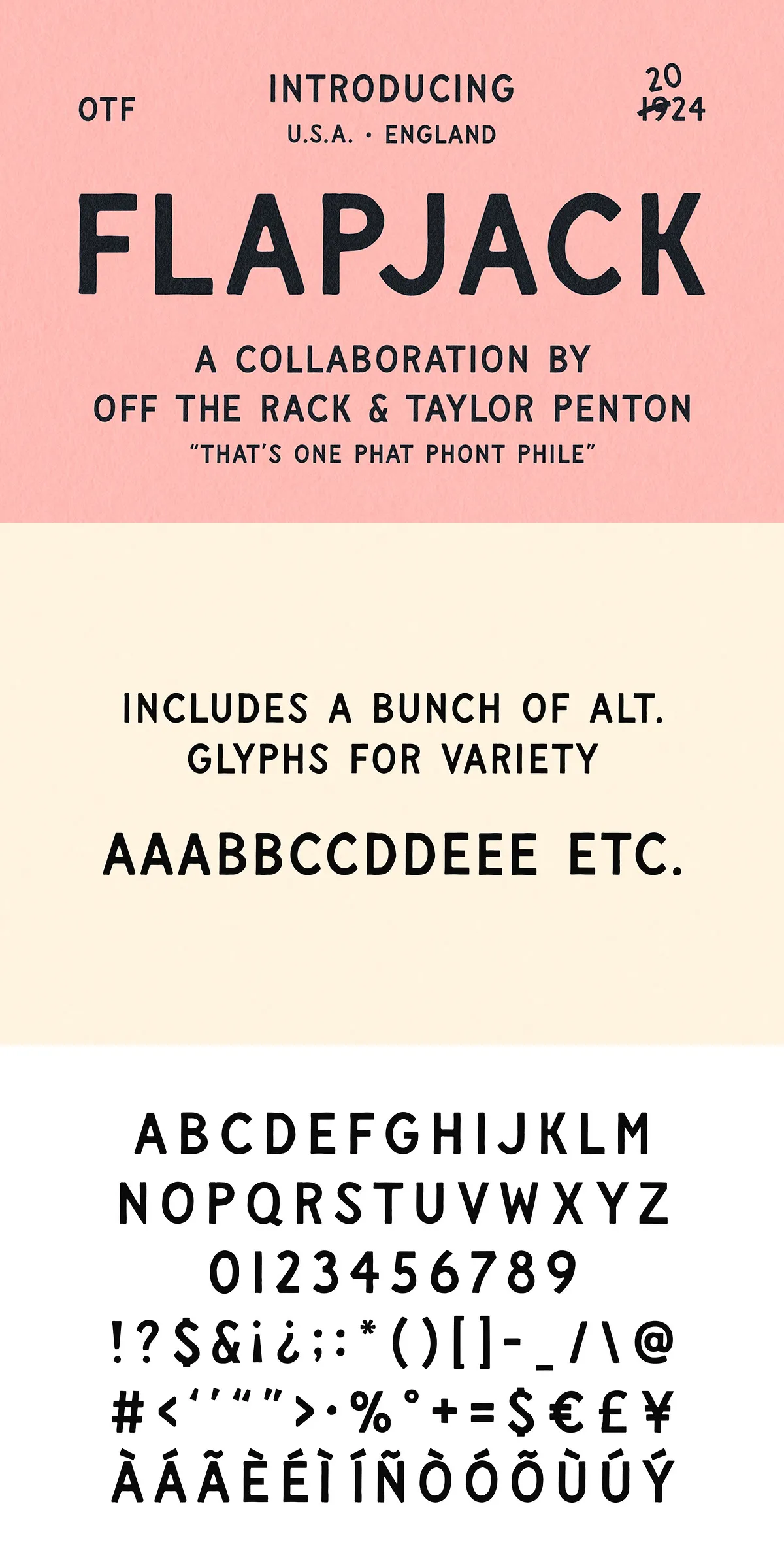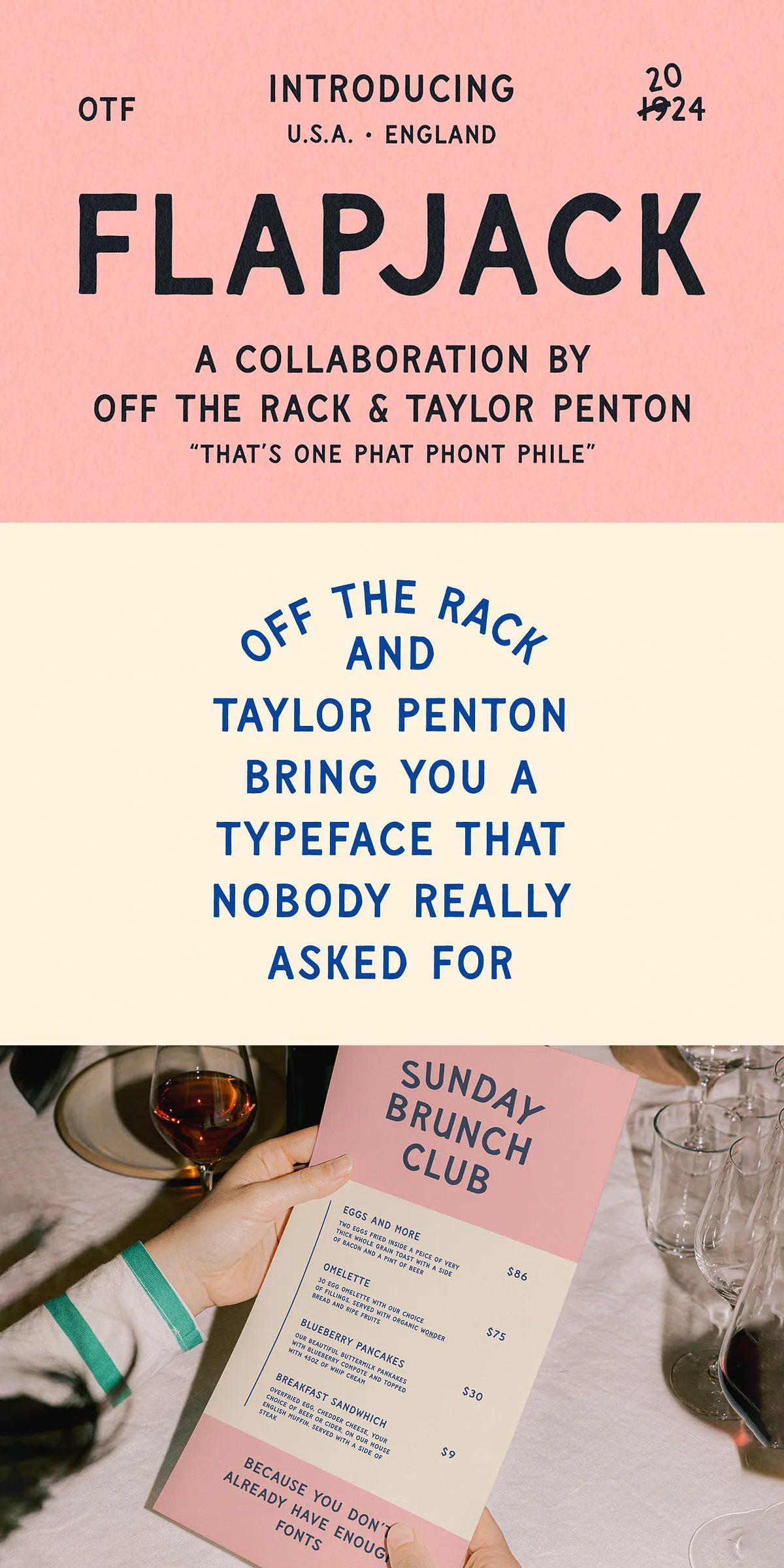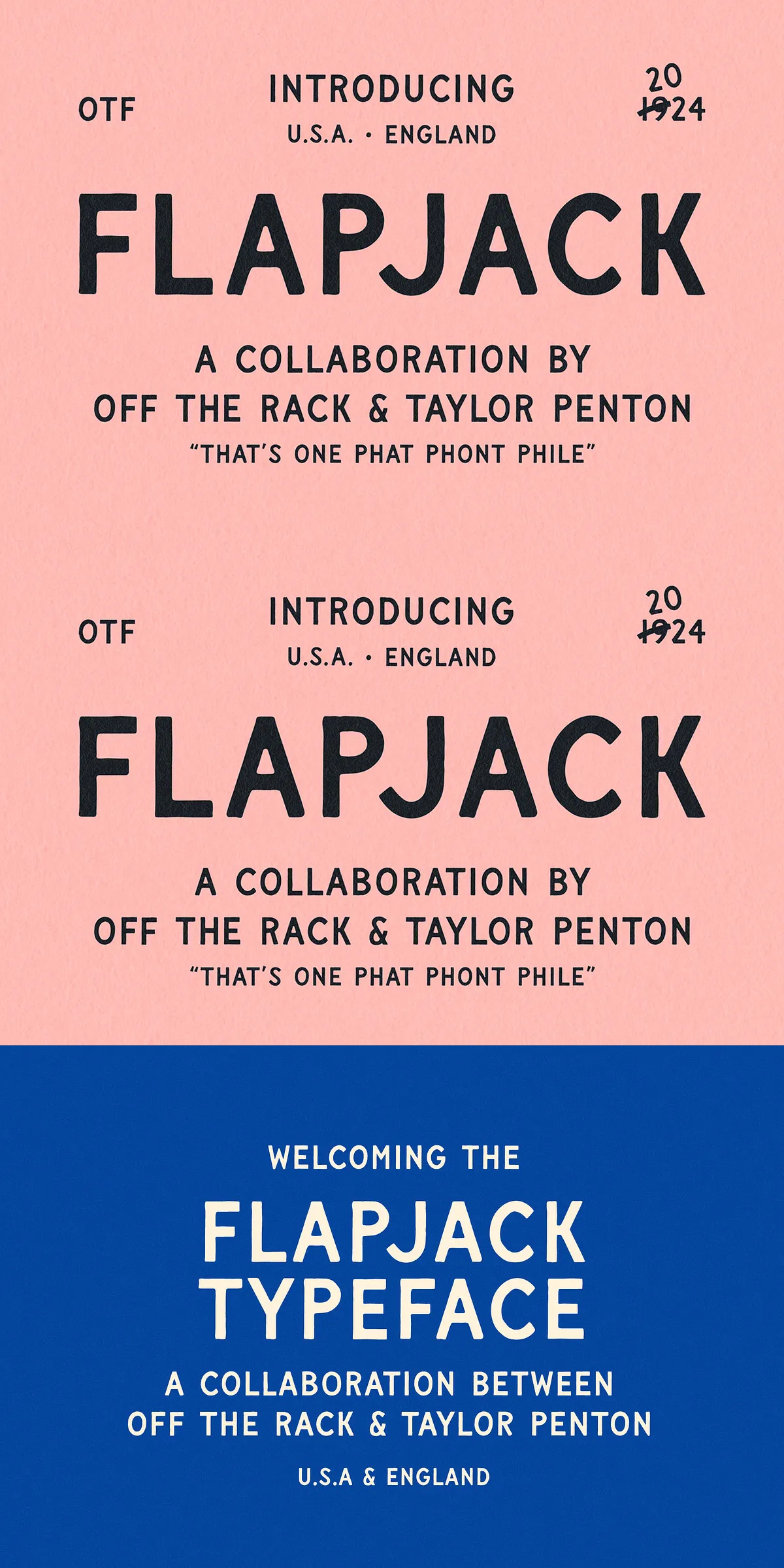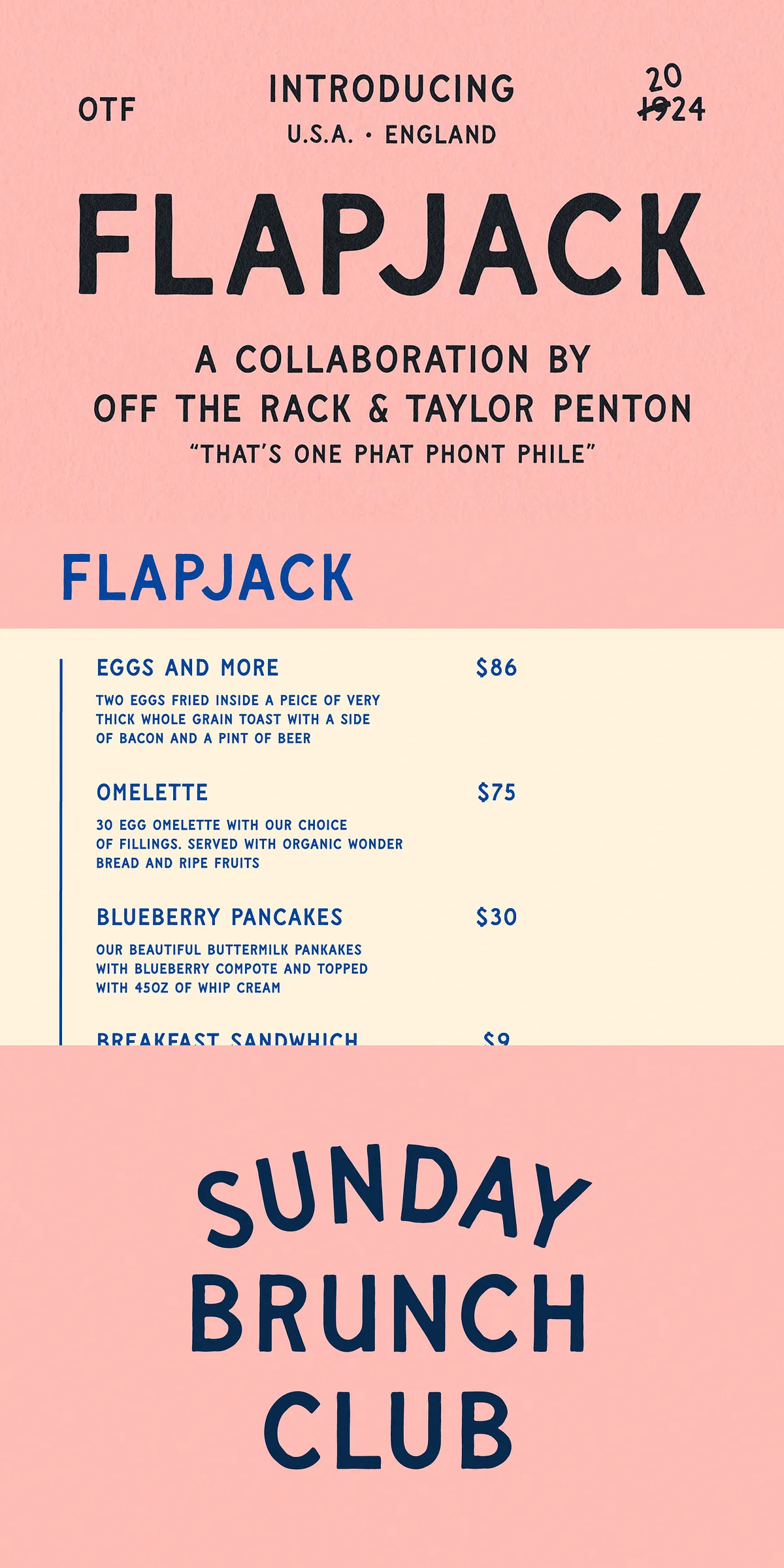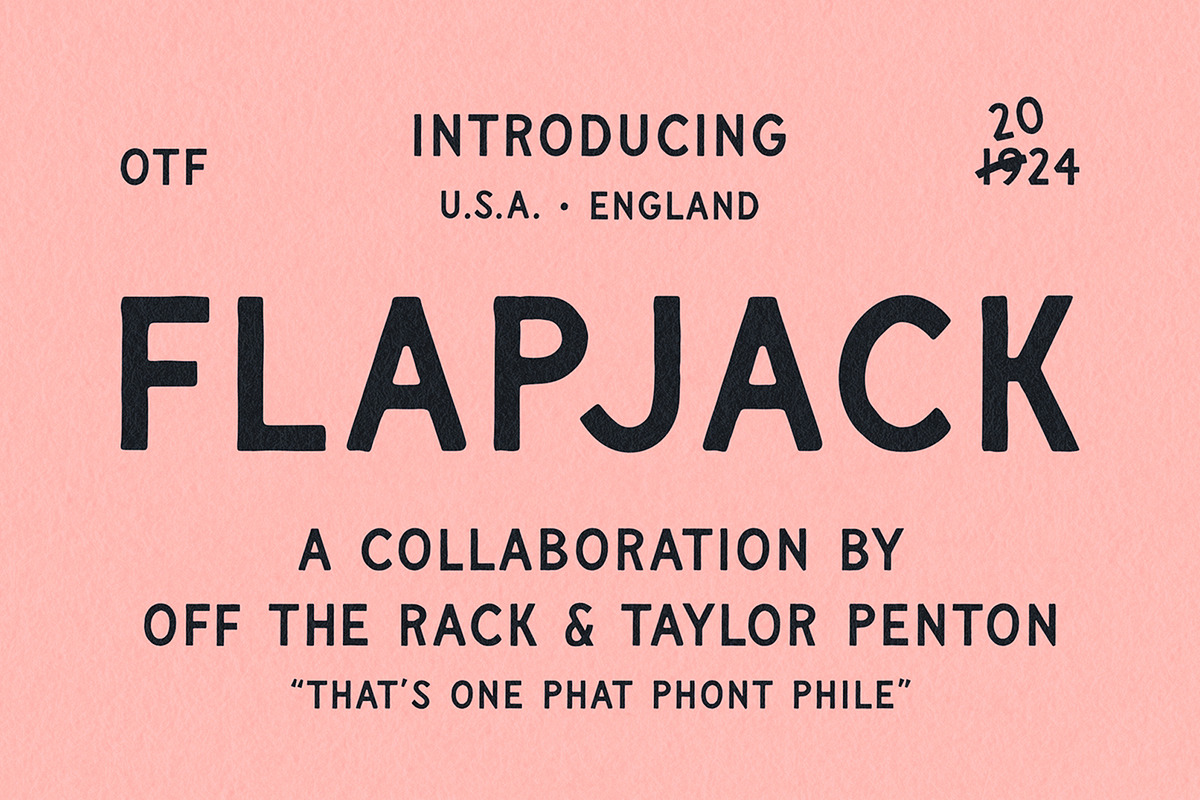
Flapjack is a truly vintage-inspired hand drawn font that channels the spirit and charm of early 20th century shop signs and painted billboards. With a deliberate nod to the craftsmanship and style of historic sign-writers who carefully drew each letter by hand, Flapjack brings a warm, artisanal aesthetic to contemporary design projects. This font is designed not only to look authentic but also to be highly flexible and functional for a variety of creative uses. Its unique hand-drawn style exudes personality and nostalgia while maintaining strong usability for modern branding and design.
Authentic Vintage Craftsmanship Revived
Inspired by the signs and billboards crafted by hand from decades past, Flapjack embodies the imperfect beauty of hand-drawn lettering. Each character was lovingly created by hand, capturing the textures and idiosyncrasies that define vintage signage. After drawing, the letters were meticulously adjusted and “chopped up” to create a font that can be stretched, manipulated, and used with freedom in digital and print applications. This playful yet authentic approach ensures Flapjack can convey vintage flair without losing visual integrity, even under extreme transformations.
Characters and Features for Maximum Versatility
Flapjack is thoughtfully packed with features to meet diverse design needs. It includes uppercase characters, alternative glyphs, punctuation marks, digits, and linguistic support for over 50 languages. The inclusion of many alternate characters reinforces the hand-drawn vibe by allowing designers to vary letterforms throughout their layouts, preventing repetitiveness and enhancing uniqueness. Whether used in bold logos or subtle menu text, the font adapts effortlessly across scales and formats.
Perfect for Distinctive Branding and Merchandising
This font works exceptionally well for logos, merchandise, and any project that seeks to infuse vintage spirit into a contemporary brand identity. Flapjack’s hand-drawn style adds a distinctive personality that communicates authenticity and approachability. It’s equally at home on a large billboard grabbing attention from afar as it is in fine print on a cafe menu, showcasing its impressive versatility. Whether you want to create standout merch designs or inject nostalgic charm into print and digital assets, Flapjack offers an engaging typographic solution.
Endless Design Possibilities and Creative Freedom
Flapjack encourages creative freedom by being a font you can confidently manipulate without fear of damage to the type’s character or quality. Its design invites stretching, scaling, and playful distortion while retaining legibility and aesthetic coherence. The font’s nostalgic attributes combined with this flexibility make it ideal for a wide range of applications, from traditional branding to artistic, contemporary campaigns that want to celebrate vintage heritage with a modern twist.
Summary: Flapjack as Your Go-To Vintage Hand Drawn Typeface
In conclusion, Flapjack is a vintage-inspired hand drawn font that brings early 20th century sign-writing craftsmanship back to the forefront of modern design. Its authentic, hand-crafted aesthetics combined with extensive alternate characters and language support provide designers with a robust and versatile tool for branding, merchandise, and more. Use it to inject genuine vintage flair and character into your projects with a font that balances historical charm and contemporary utility perfectly.